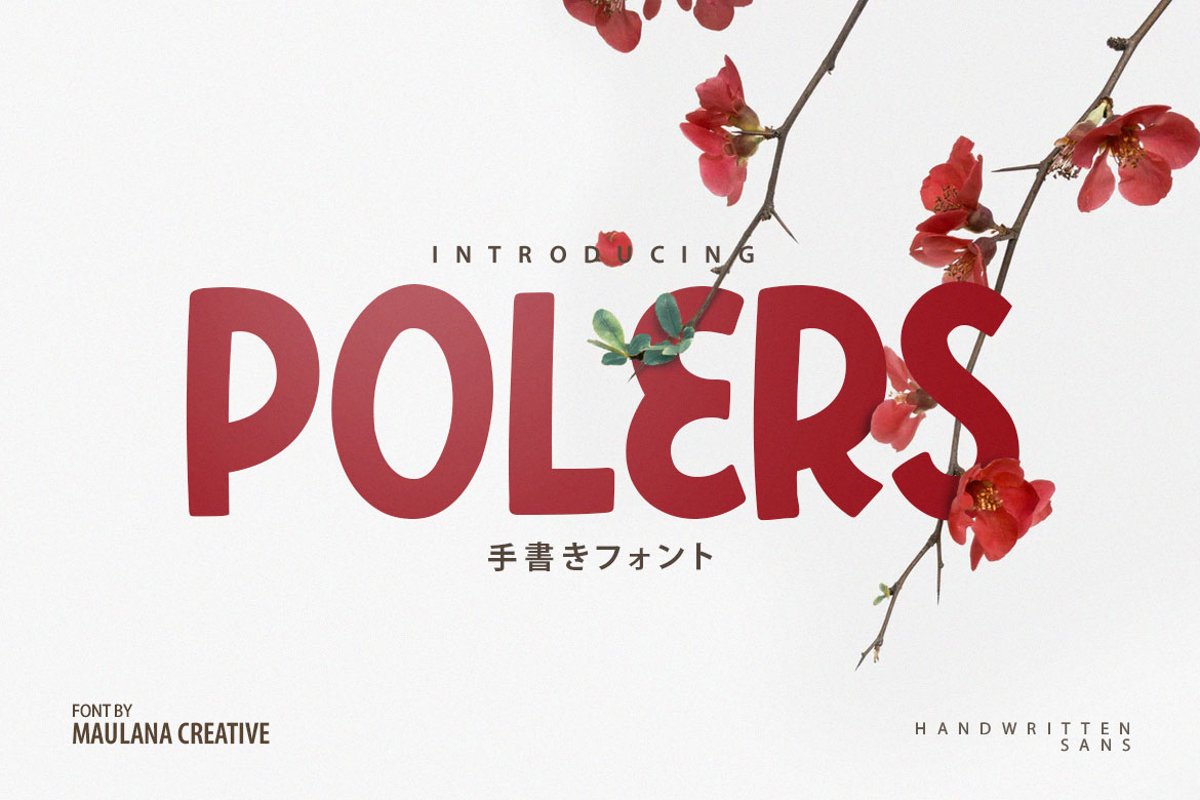
Polers is a handwritten sans serif font. This font is very simple and fun to use! Polers is perfect for create a quotes, logo, badge, insignia, packaging, headline, poster, t-shirt/apparel, greeting card, wedding invitation and more. This Polers font include multilingual language.
- Language Support (English, Spanish, Portguese, German, Italian, French, Polish)